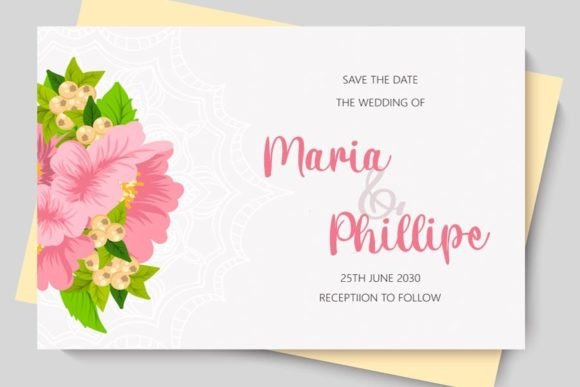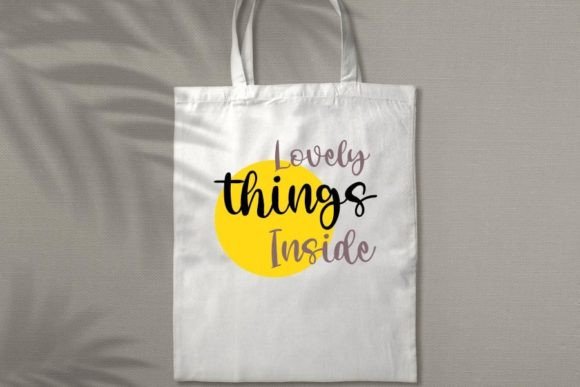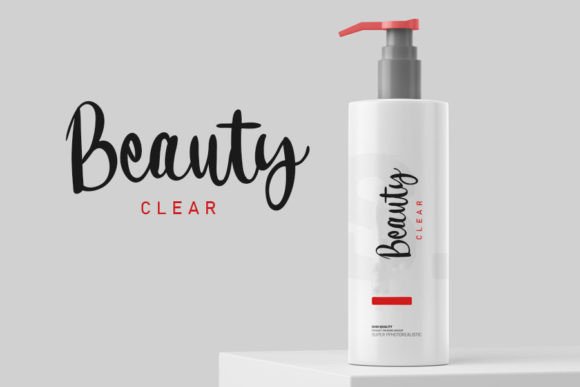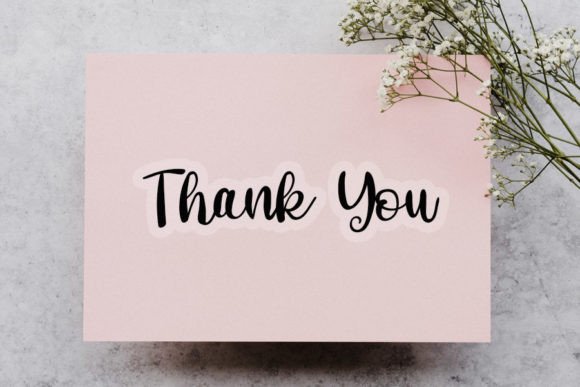
The Enchanting Blueberry Font: A Designer’s Delight
I’ll never forget the time I was working on a project for a client’s wedding invitation. I had the design concept nailed down, but something was missing – the perfect font. I scoured the internet, tried out countless fonts, but none seemed to capture the romantic feel I was going for. That’s when I stumbled upon the Blueberry font. It was love at first sight! 💕
The Blueberry font is an enchanting handwritten font that has a wide spectrum of applications, ranging from greeting cards to headlines. Its versatility and romantic feel make it a perfect addition to any design project.
- ✨ The Blueberry font has a unique, whimsical feel that adds a touch of elegance to any design.
- ✅ It’s highly versatile and can be used for a wide range of projects, from formal invitations to social media graphics.
- 💫 The font has a beautiful, flowing script that is easy to read and looks great in both digital and print formats.
While the Blueberry font is amazing, there are a few things to keep in mind:
- 🤔 The font can be a bit tricky to pair with other fonts, so it’s best to stick with a simple, clean font for body text.
- ⚠️ Some of the glyphs and special characters can be a bit finicky, so be sure to test the font thoroughly before finalizing your design.
The Story Behind Blueberry Font
The Blueberry font was designed by a team of talented typographers who wanted to create a font that would capture the essence of a whimsical, romantic feel. Inspired by the beauty of handwritten scripts and the elegance of calligraphy, the Blueberry font was born. With its unique blend of elegance and playfulness, it’s no wonder this font has become a favorite among designers and crafters.
| Font Name | Blueberry Font |
| Author | Snowman Studio |
Q: What is the Blueberry font best used for?
A: The Blueberry font is best used for designs that require a romantic, whimsical feel, such as wedding invitations, greeting cards, and social media graphics.
Q: Is the Blueberry font easy to read?
A: Yes, the Blueberry font is highly legible and easy to read, making it perfect for both digital and print designs.